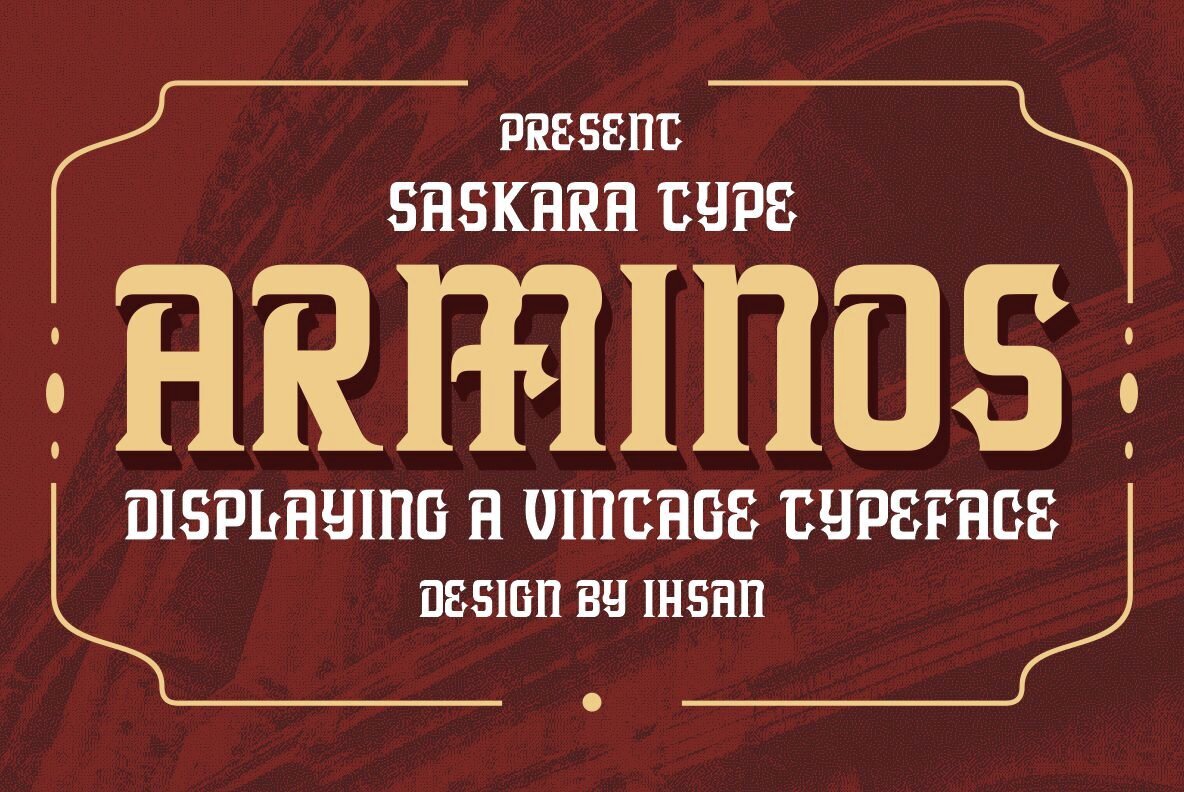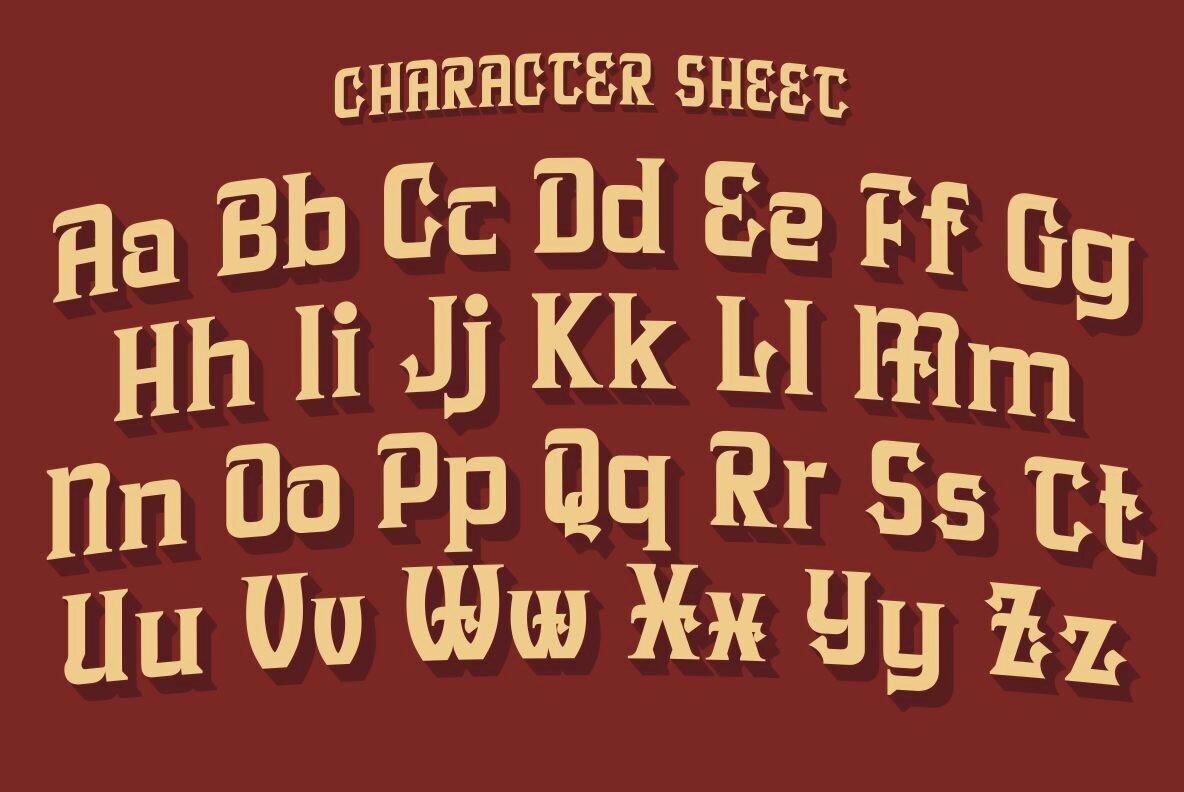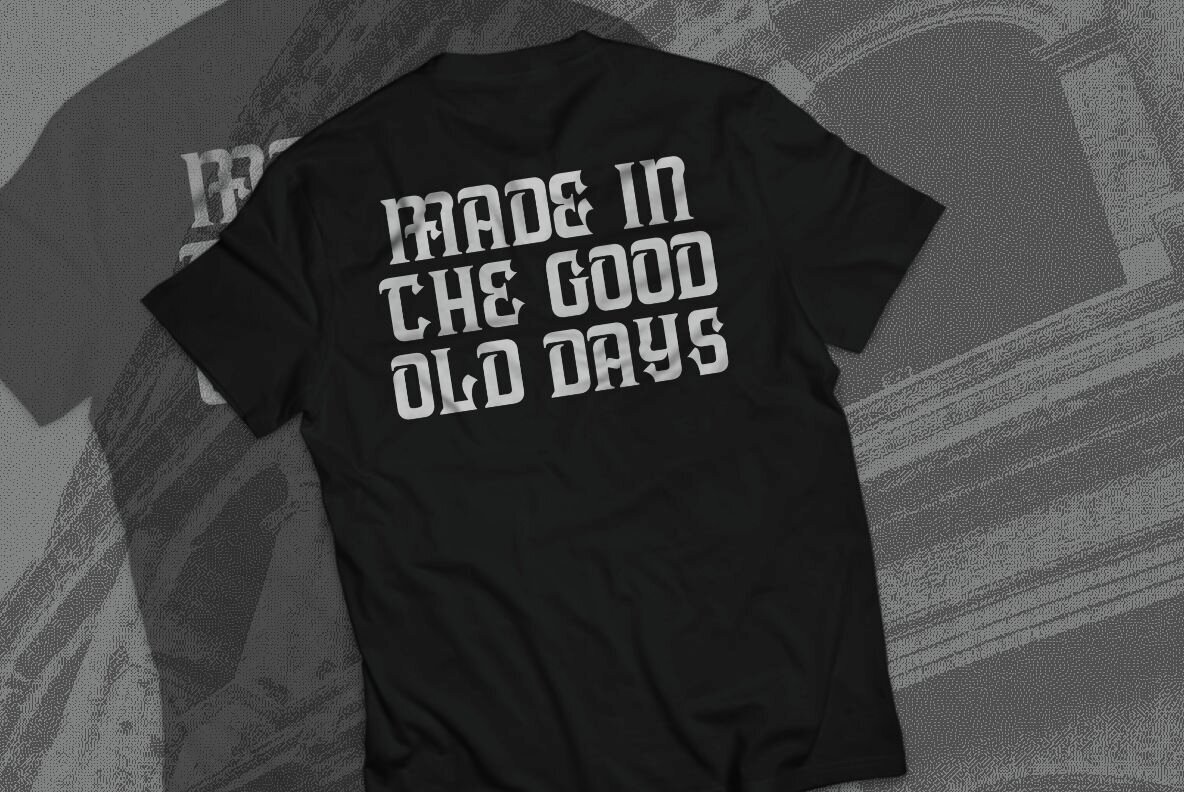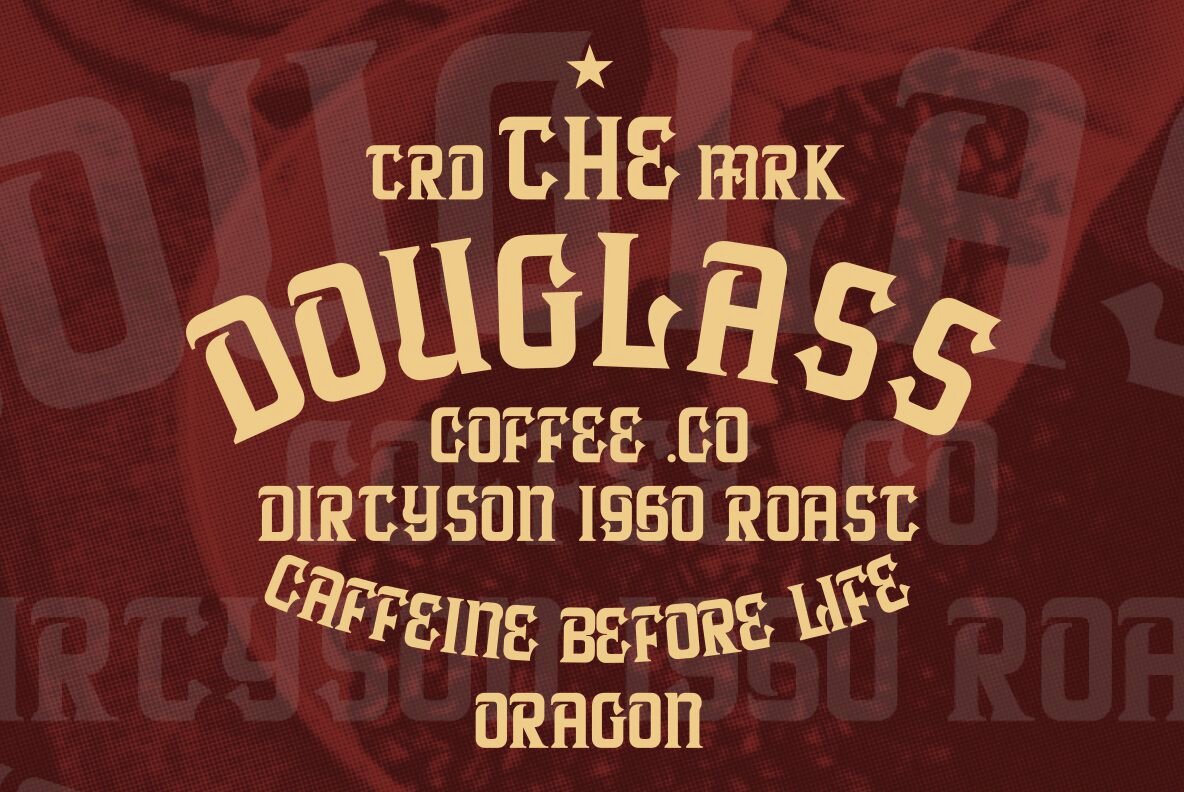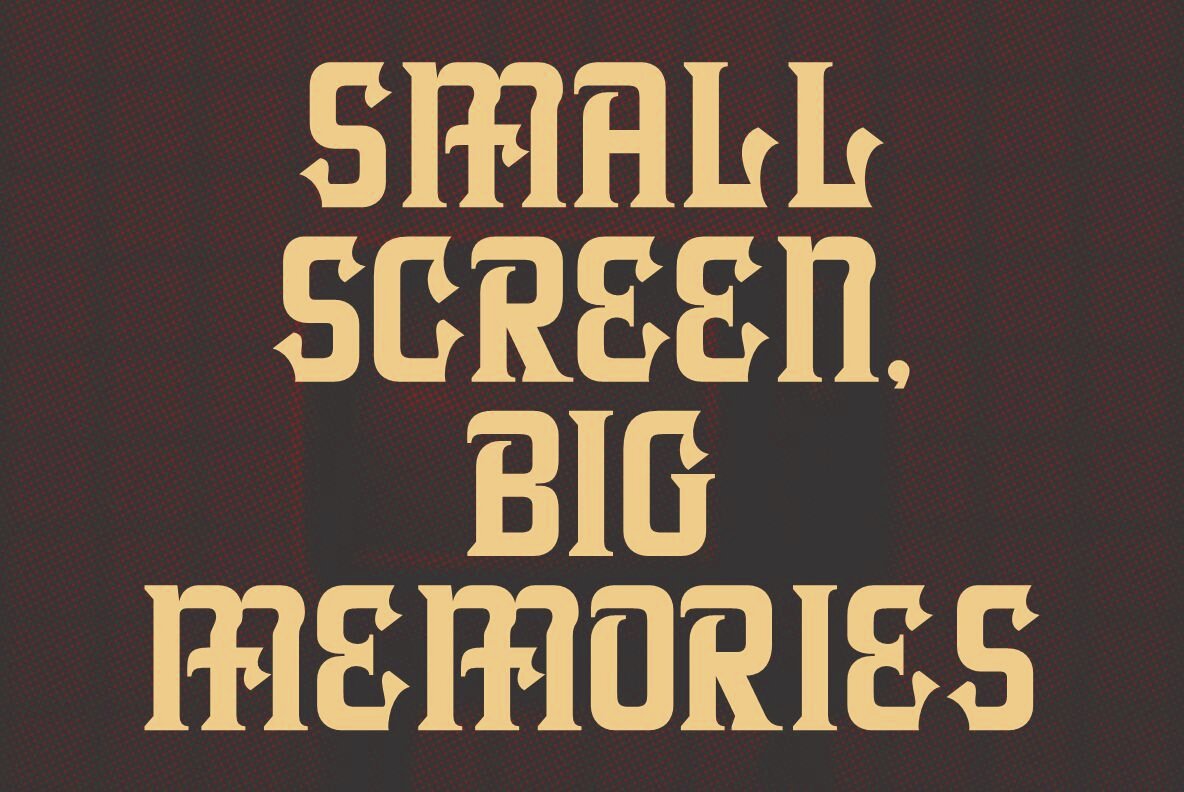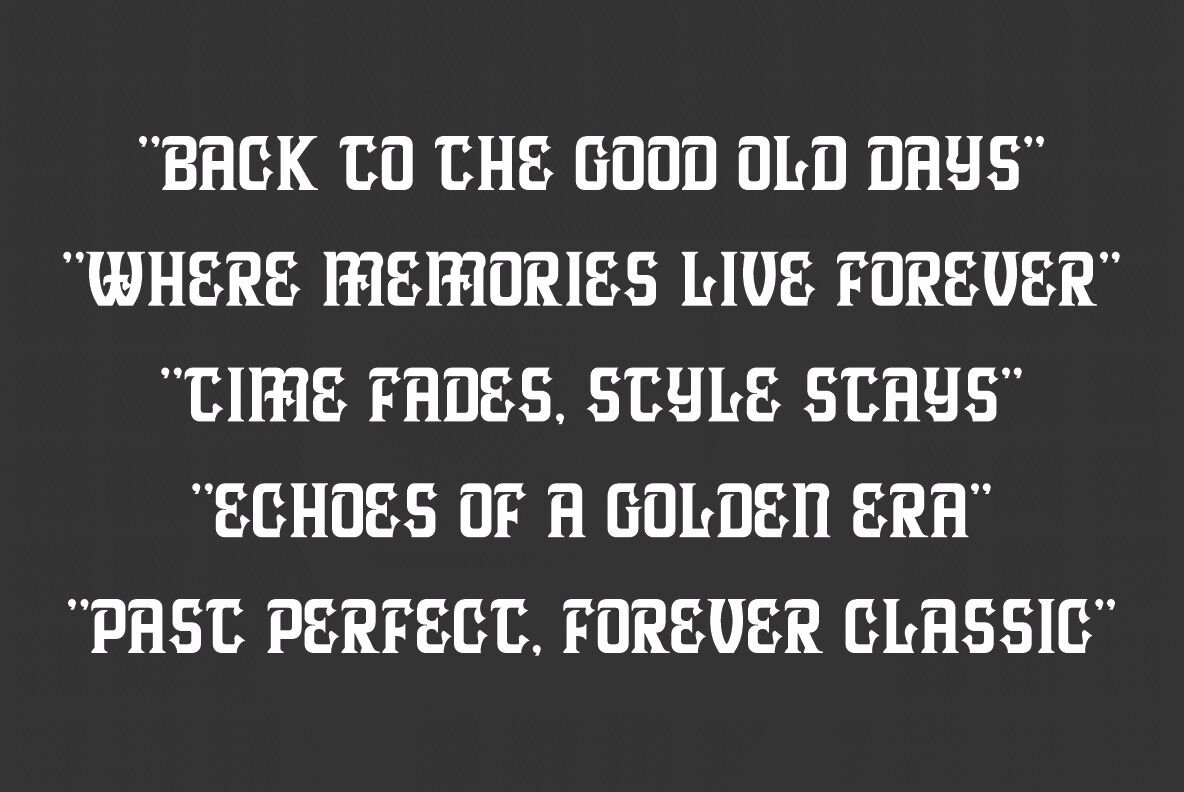
ARMINOS Font
Arminos Regular
Step back in time with Arminos, a regular vintage display font that elegantly channels classic lettering and retro aesthetics. Its rustic curves, textured details, and robust character echo the timeless allure of old signage and print designs, making it an ideal choice for those seeking authenticity and charm. Embrace a nostalgic, vintage vibe in your projects and let Arminos infuse them with heritage and authenticity.ARMINOS Vintage Display Font